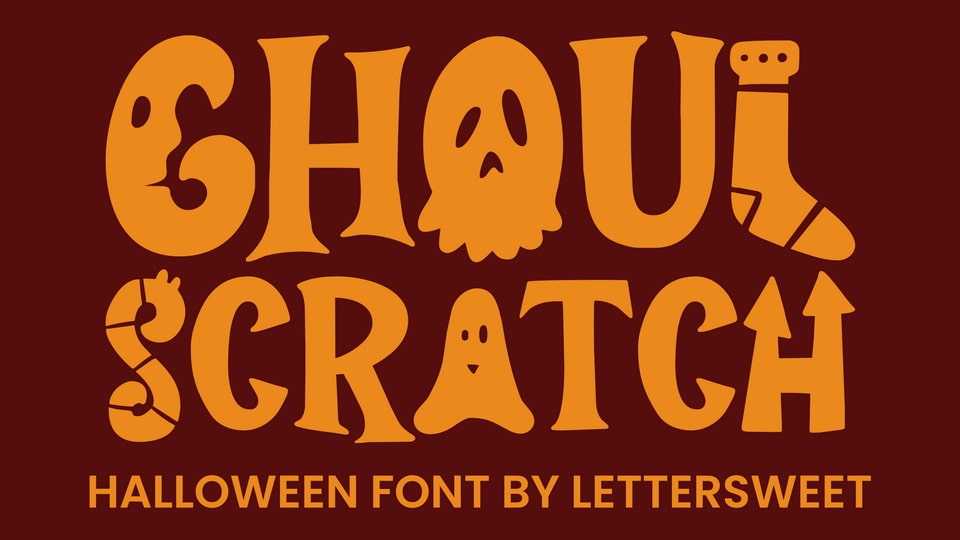
Download Ghoul Scratch font, a bold, decorative typeface designed for Halloween-themed projects. The unique letterforms incorporate playful, spooky elements.